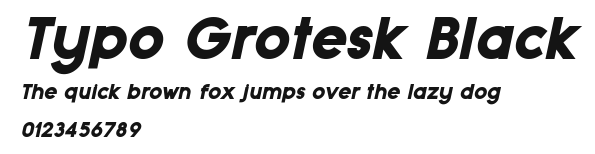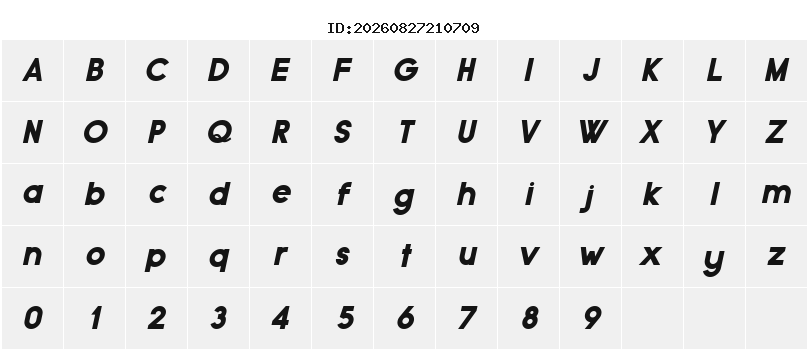
• Font Name: Typo Grotesk Black
• Full Font Name: Typo Grotesk Black Italic
• Manufacturer: StudioTypo
About Typo Grotesk Black.otf
Typo Grotesk Black.otf is a modern, elegant sans-serif font designed for ultimate readability and visual harmony. Perfect for branding, headlines, web design, and print materials.